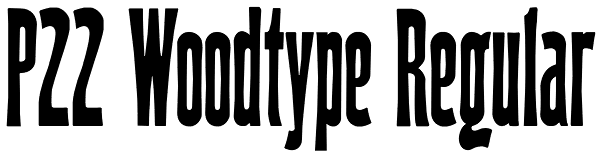
P22 Woodtype
Woodtype is a set of four fonts based on 19th Century American wooden printing types. Woodtype Regular is a condensed Tuscan styled font with a lower case and full international character set. Woodtype Small Caps is a variation of the regular with...